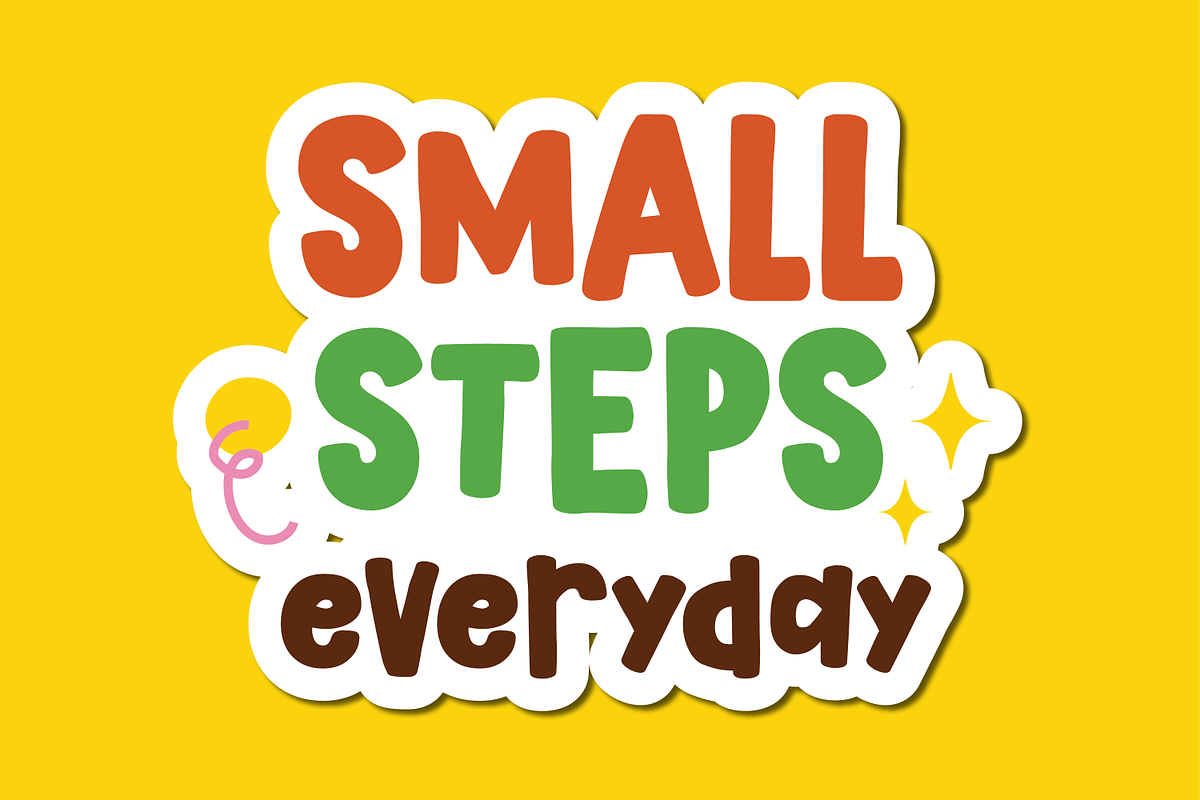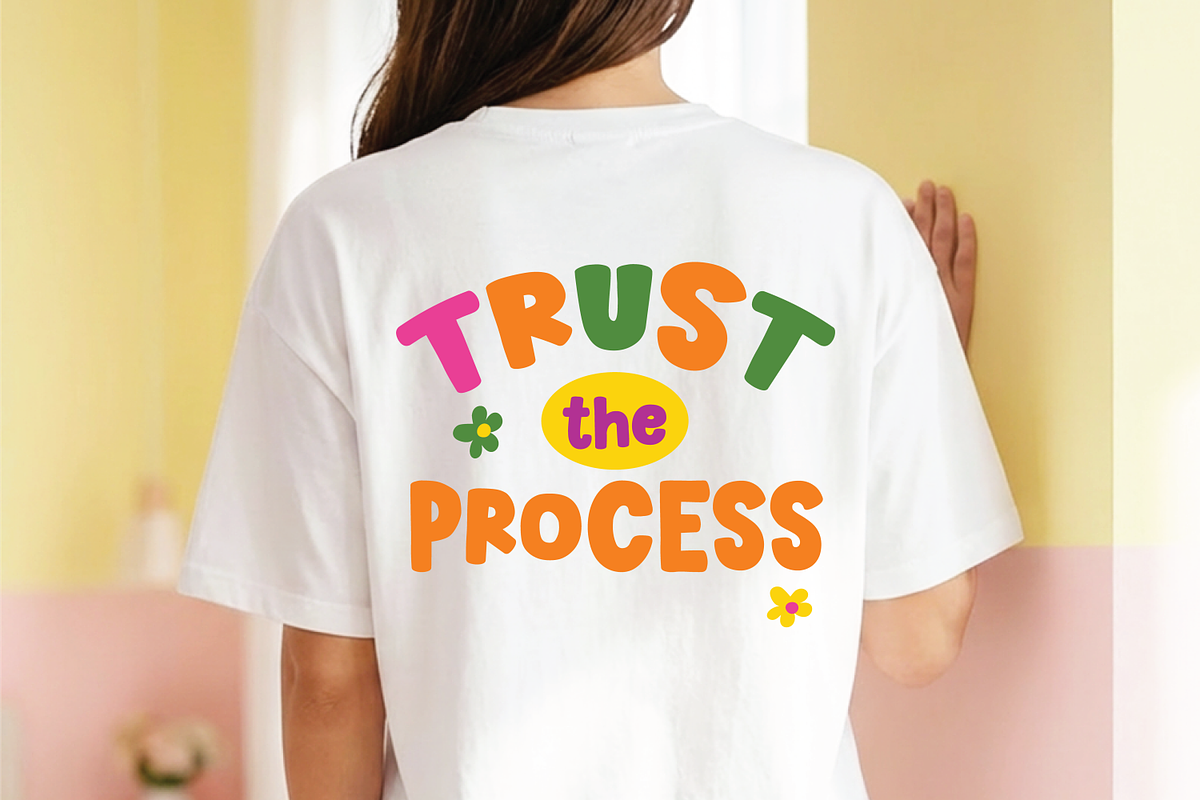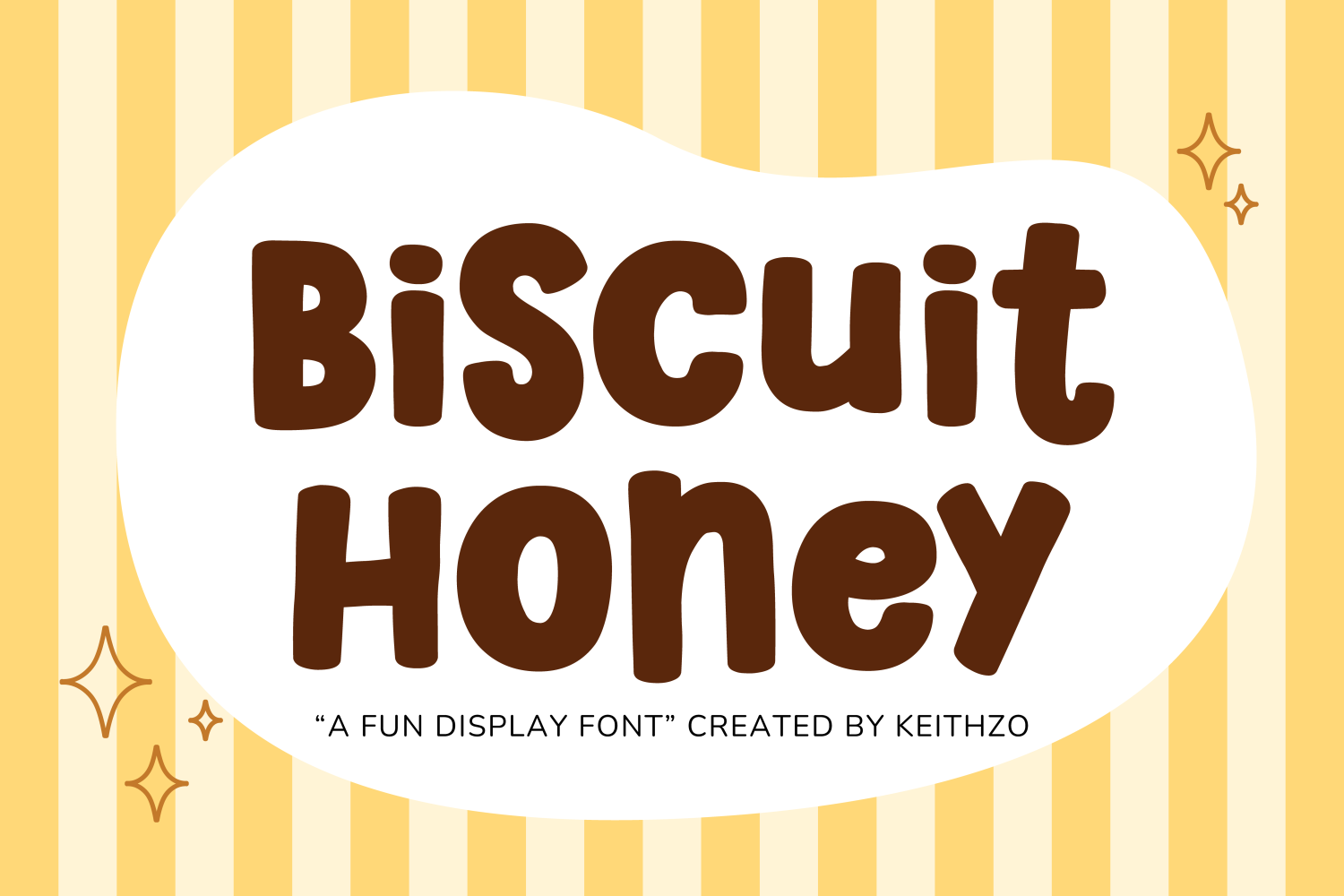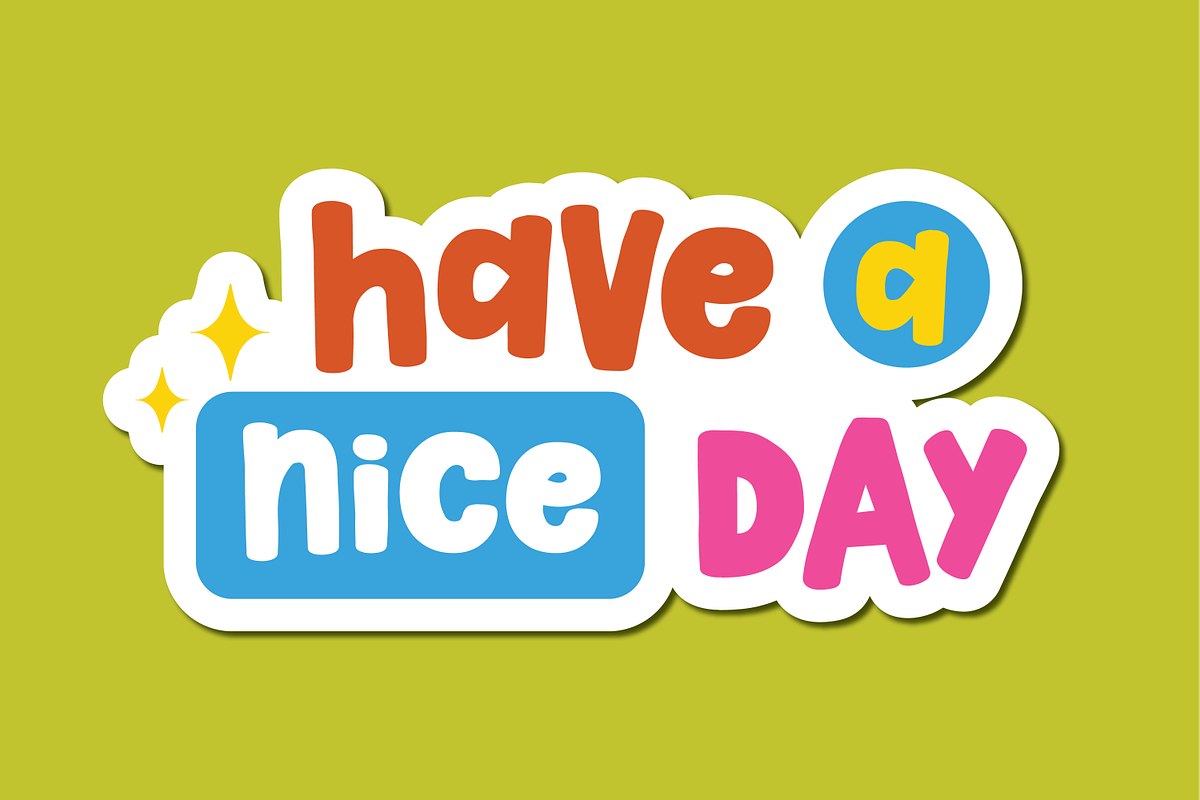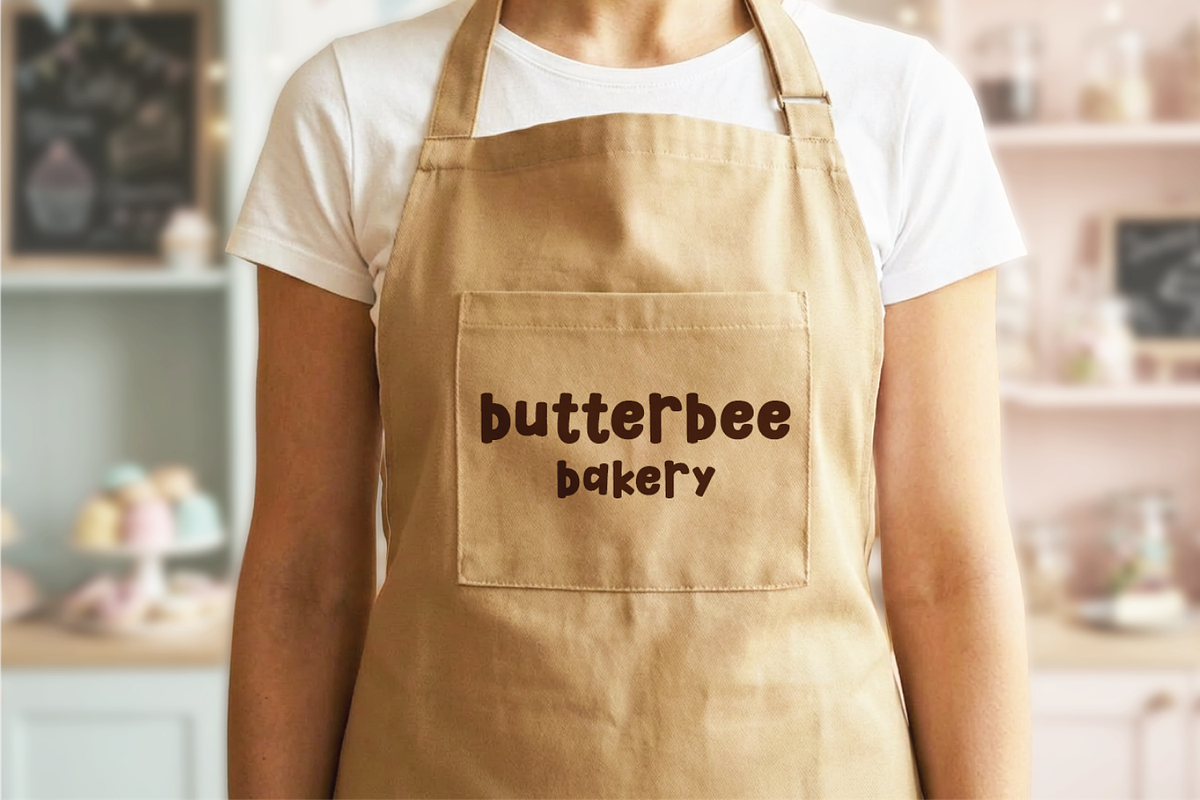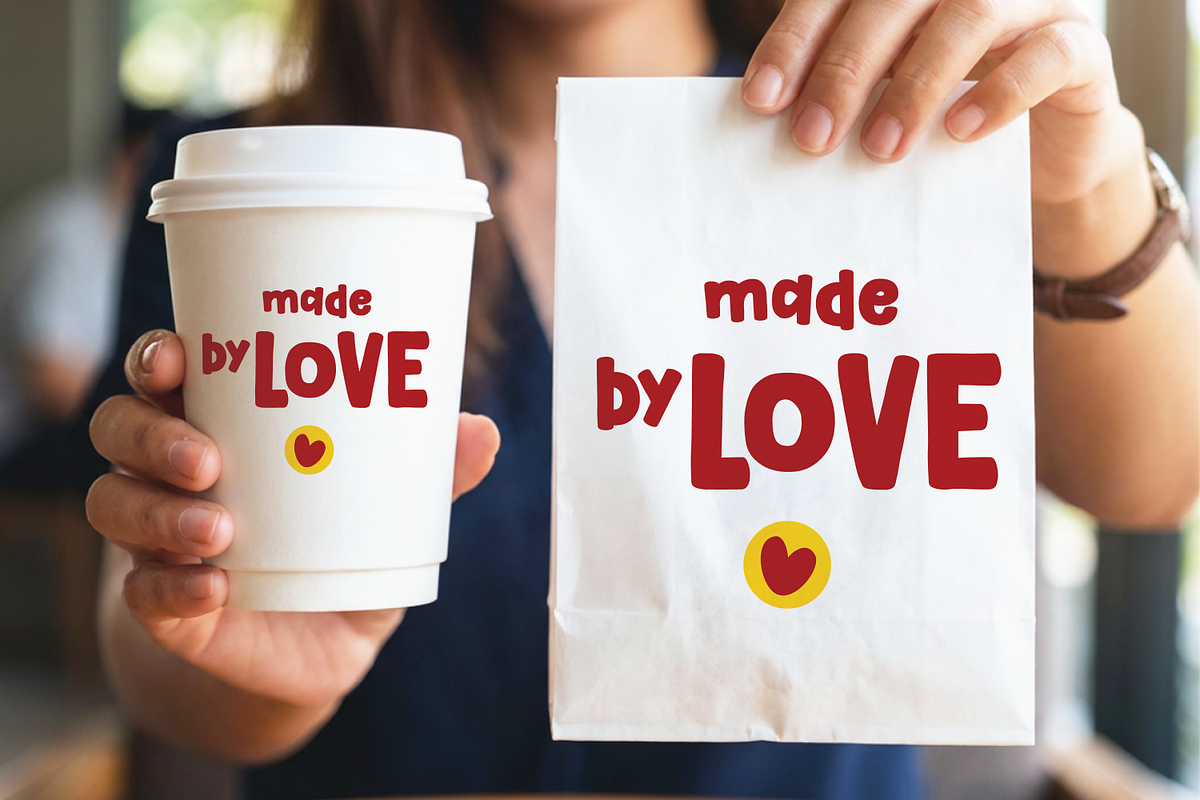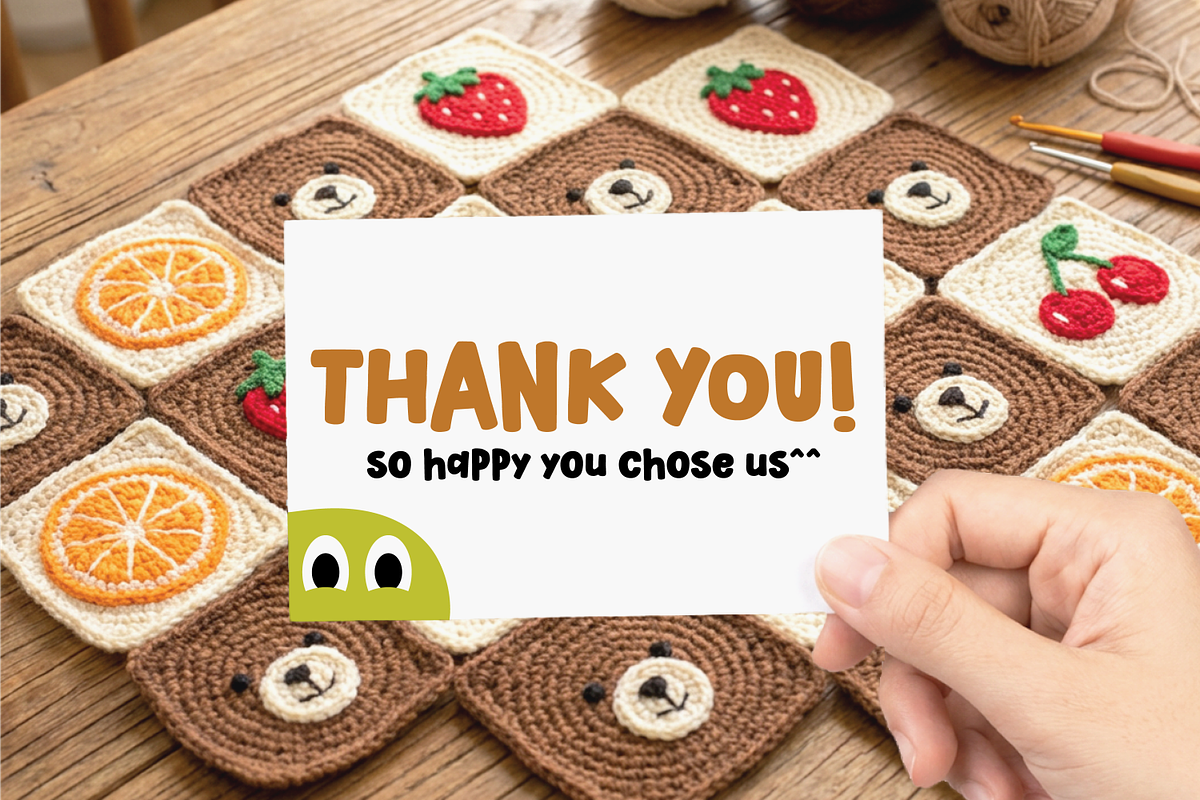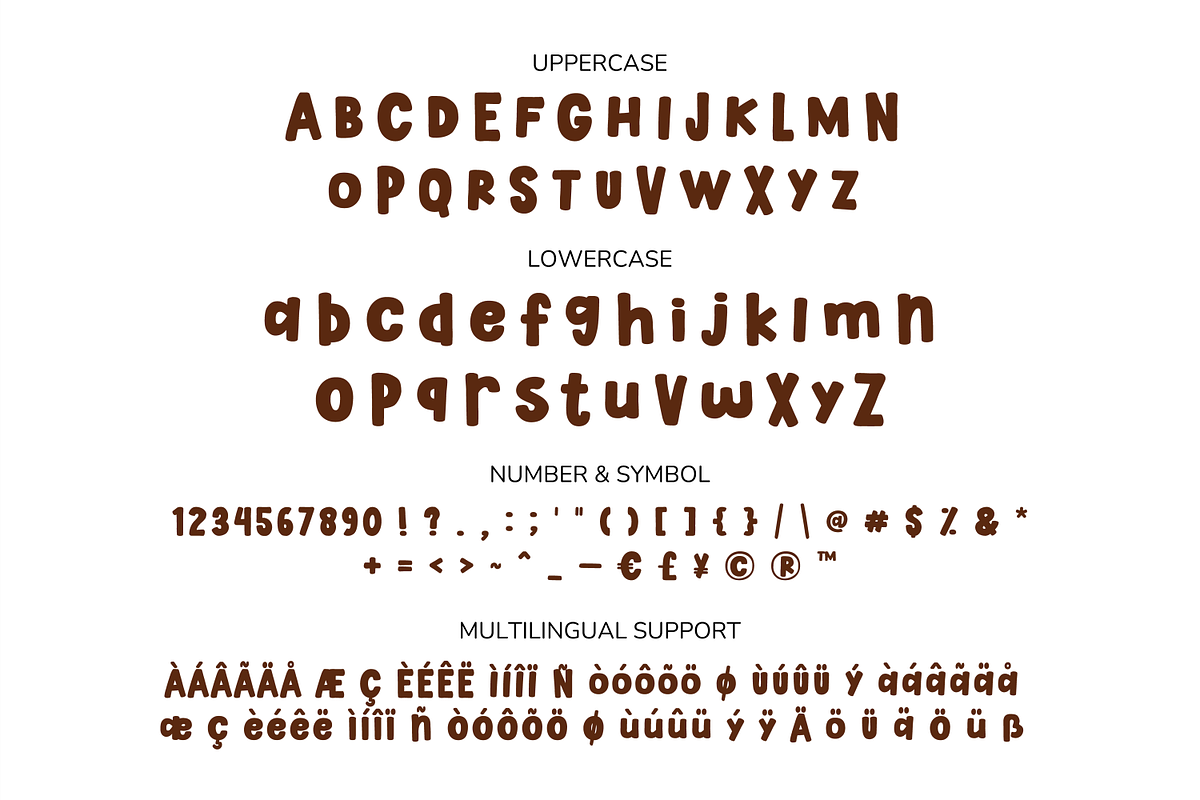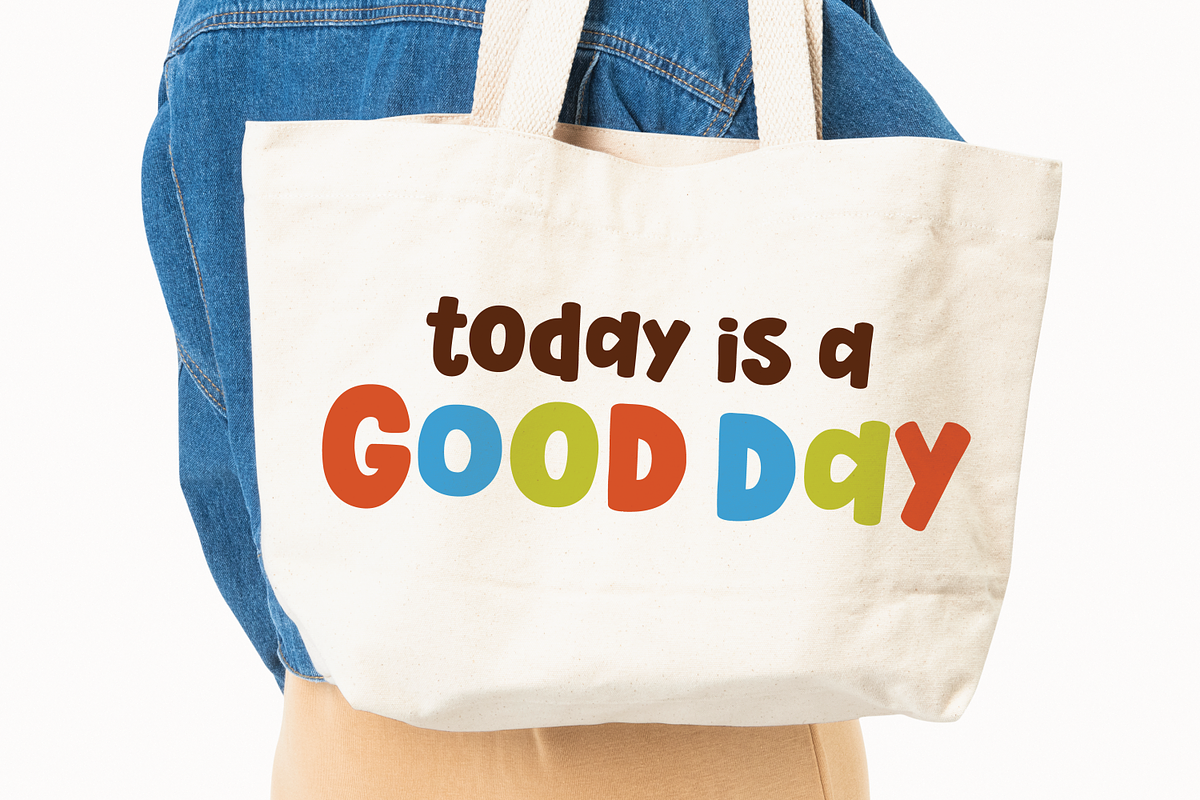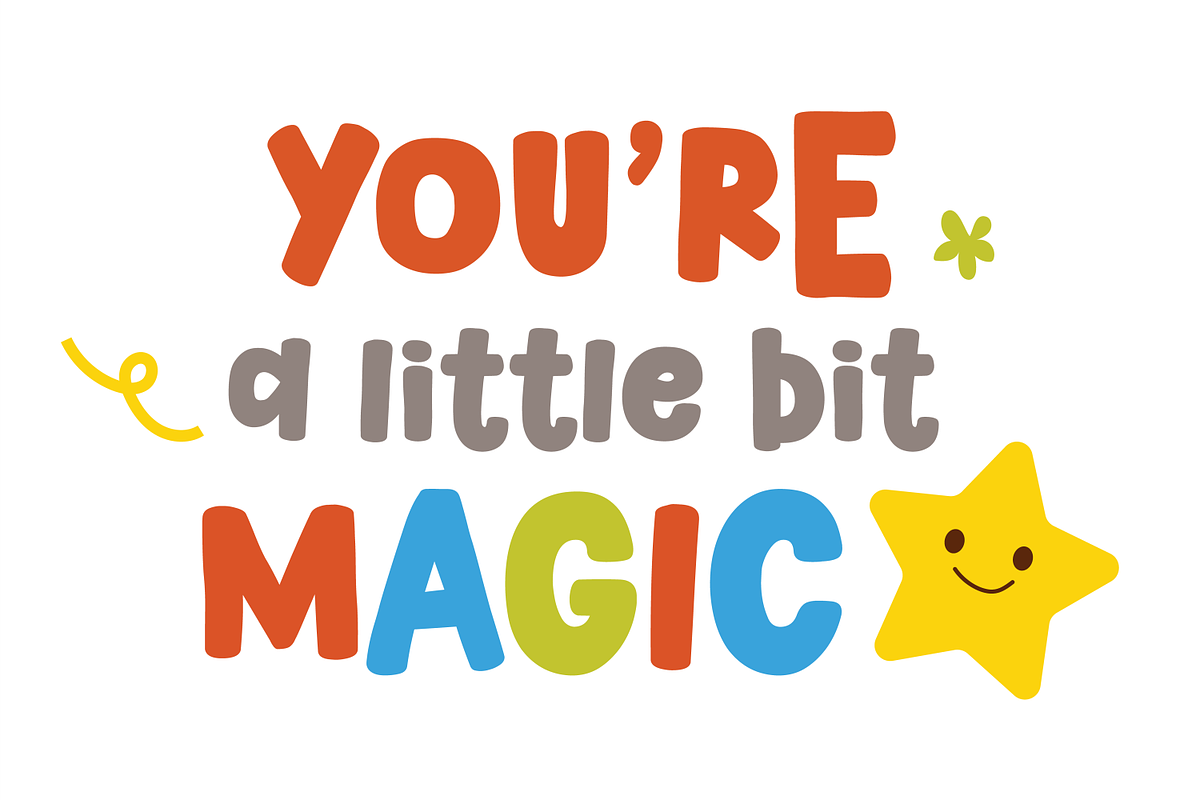
Biscuit Honey - Display Font
Introducing Biscuit Honey – A Sweet and Playful Handwritten Font. Let this irresistibly charming font be the latest addition to your artistic arsenal.
Biscuit Honey genuinely embodies the distinct warmth and homely allure of just baked cookies. This animated hand-scripted font boasts of gentle, curvy strokes paired with a peppy rhythm, presenting itself as the prime selection for designers aspiring to bring forth a genuine handcrafted look and feel.
Be it for a unique handwritten logo or design of quaint stationery, Biscuit Honey infuses a personal element that seamlessly blends current trends with a touch of nostalgia. Its affable character stamps it as an exceptional hand-scripted typeface for brands gravitating towards amicability and an approach as warm as a hug.